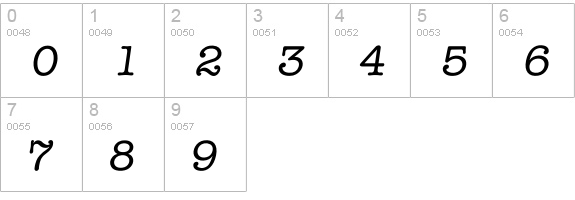
Itypewriter Regular is the standard, neutral variant in the Itypewriter typeface family \xE2\x80\x94 well suited to general body text, paragraphs, and standard typographic work.
Introducing Itypewriter Regular font, a timeless and classic typeface that captures the essence of typewritten text. With its clean and distinct letterforms, Itypewriter Regular brings a touch of nostalgia to any design project. This font is perfect for various applications, whether it's designing logos, branding materials, or creating vintage-inspired posters. Itypewriter Regular exudes a sense of authenticity, as if each character has been meticulously typed onto the page. What makes Itypewriter Regular even more appealing is that it is freely available to download at FontsMarket.com. You can now add this remarkable font to your collection without any cost. With its versatility and charm, Itypewriter Regular is a must-have for designers and typewriter enthusiasts alike. Don't miss the opportunity to bring a touch of old-world elegance to your next project. Download Itypewriter Regular today and let your creativity flow.